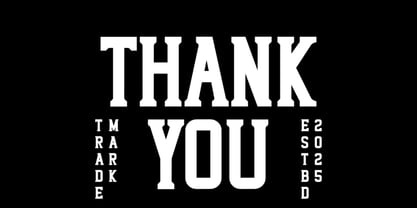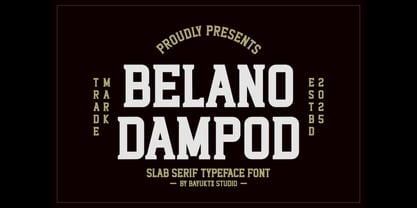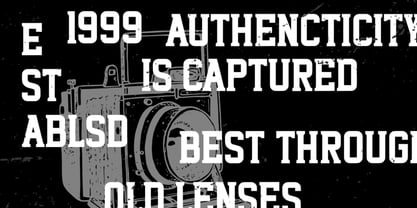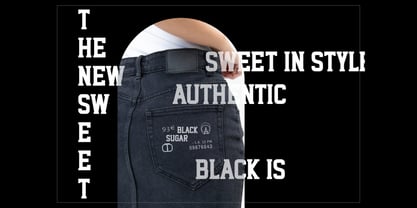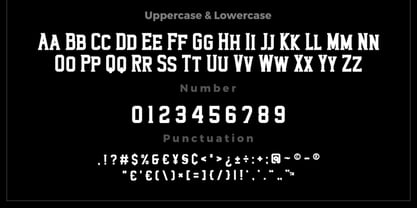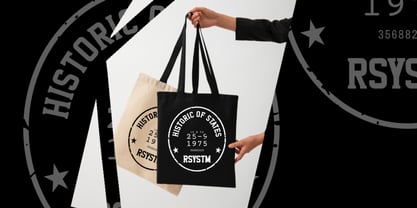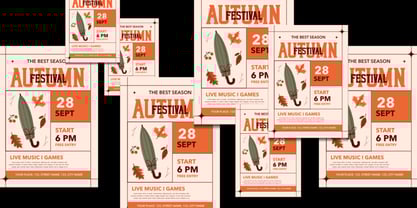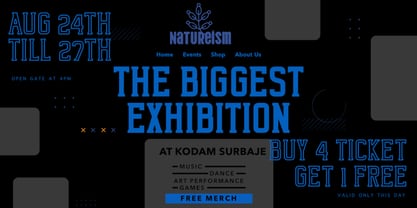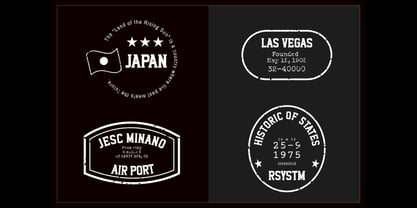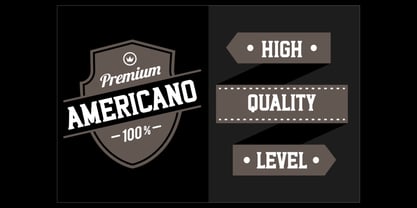
Belano Dampod
by Bayuktx
The Belano Dampod Font Family was designed by Bayu Aji Fais Mursid and published by Bayuktx. Belano Dampod contains 1 styles. More about this family
Belano Dampod Slab Serif Typeface Font is a bold and versatile slab serif typeface that blends modern strength with timeless elegance. Its solid letterforms and geometric balance give it a professional yet approachable character, making it suitable for both classic and contemporary design projects. This font is designed to deliver clarity, stability, and impact—perfect for designs that demand authority and personality. With its clean slab serifs and strong structure, Belano Dampod works seamlessly across branding, editorial layouts, packaging, posters, and digital media. Key Features : * Uppercase & Lowercase * Numerals & Punctuation * Multilingual Support * PUA Encode Suitable For : * Logos & Branding * Editorial & Magazine Design * Labels & Packaging * Social Media Graphics * Poster & Flyers With Belano Dampod Slab Serif Typeface Font, your designs will radiate strength, sophistication, and a modern classic touch that ensures your message stands out with confidence.